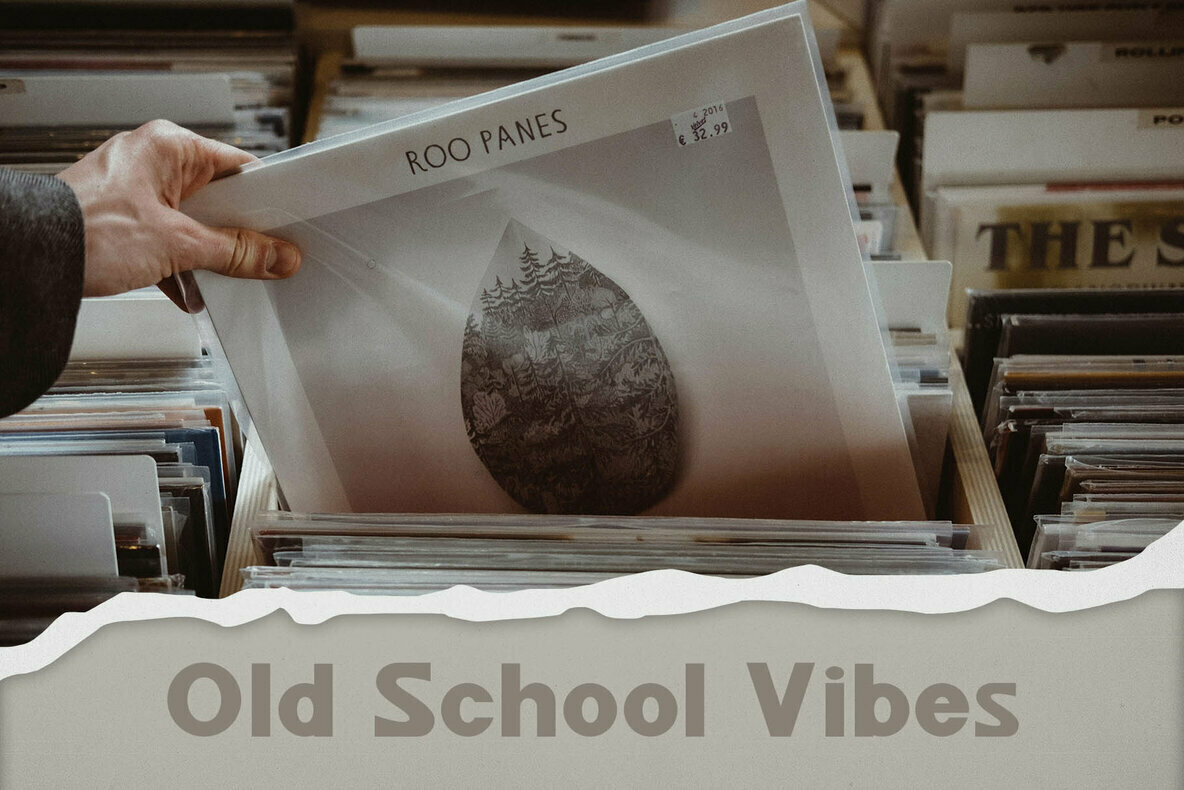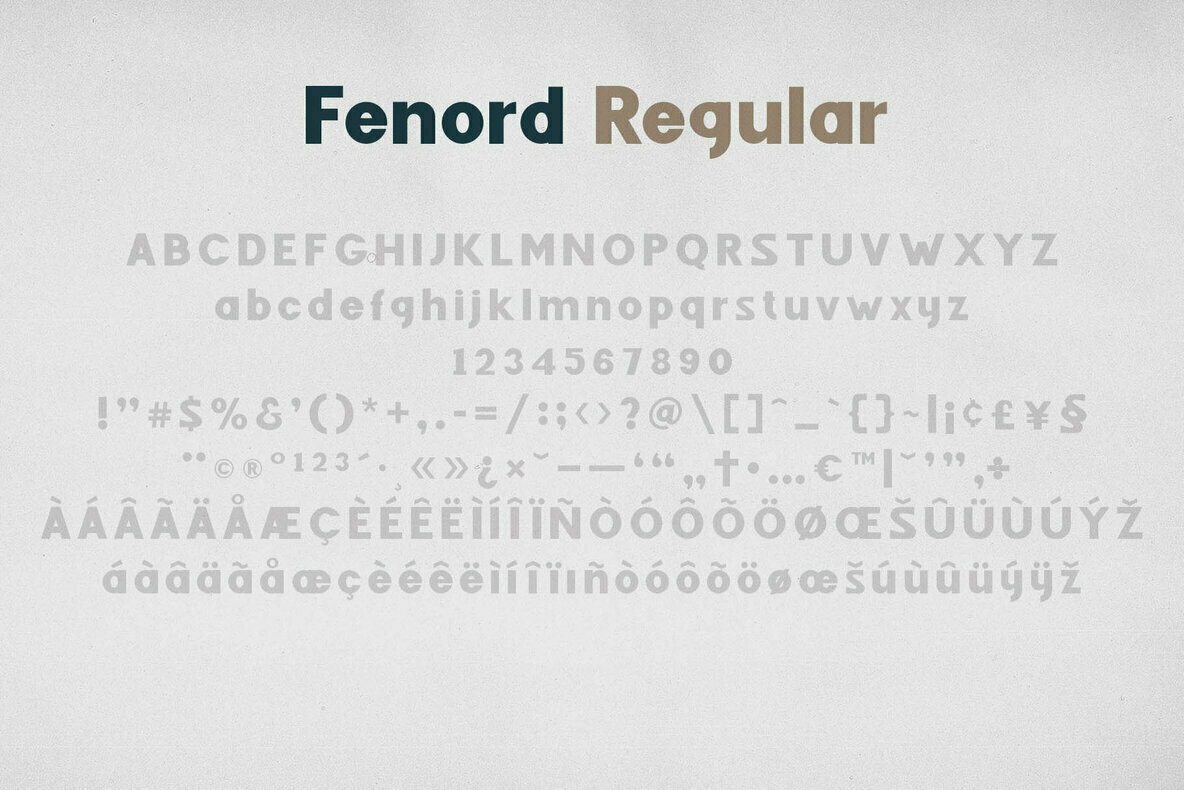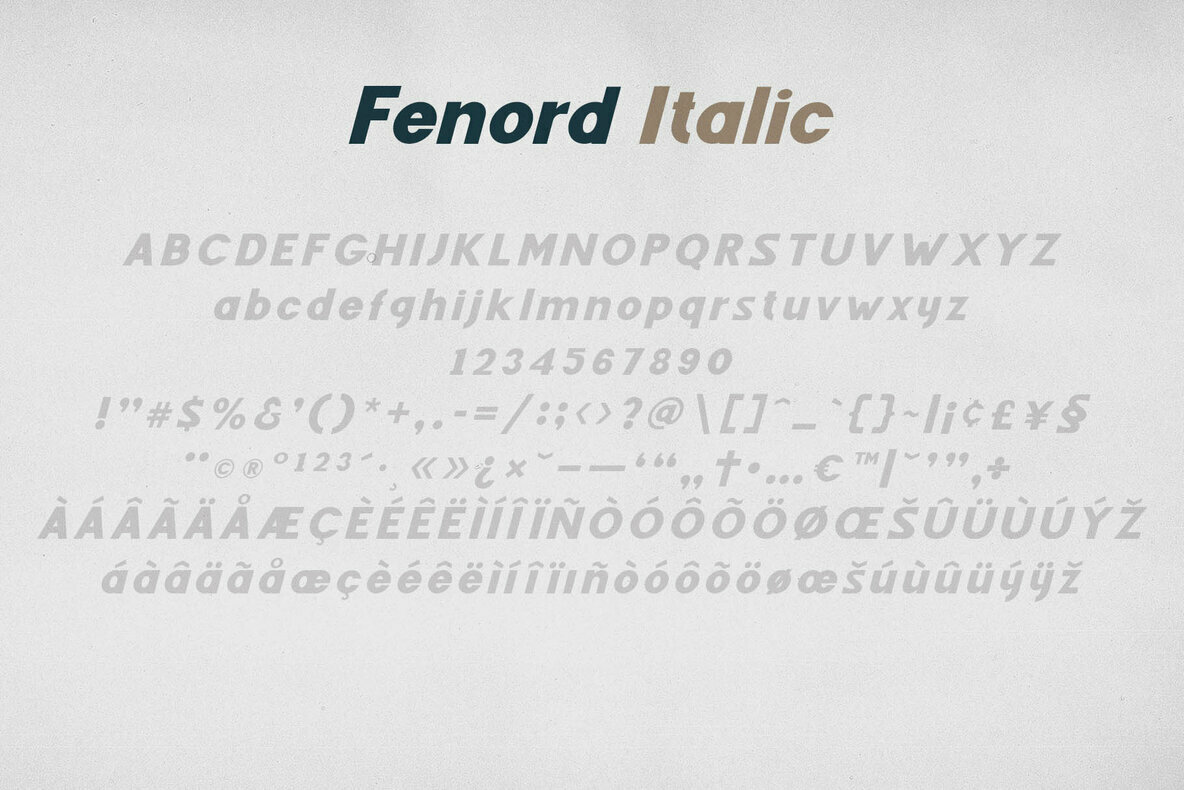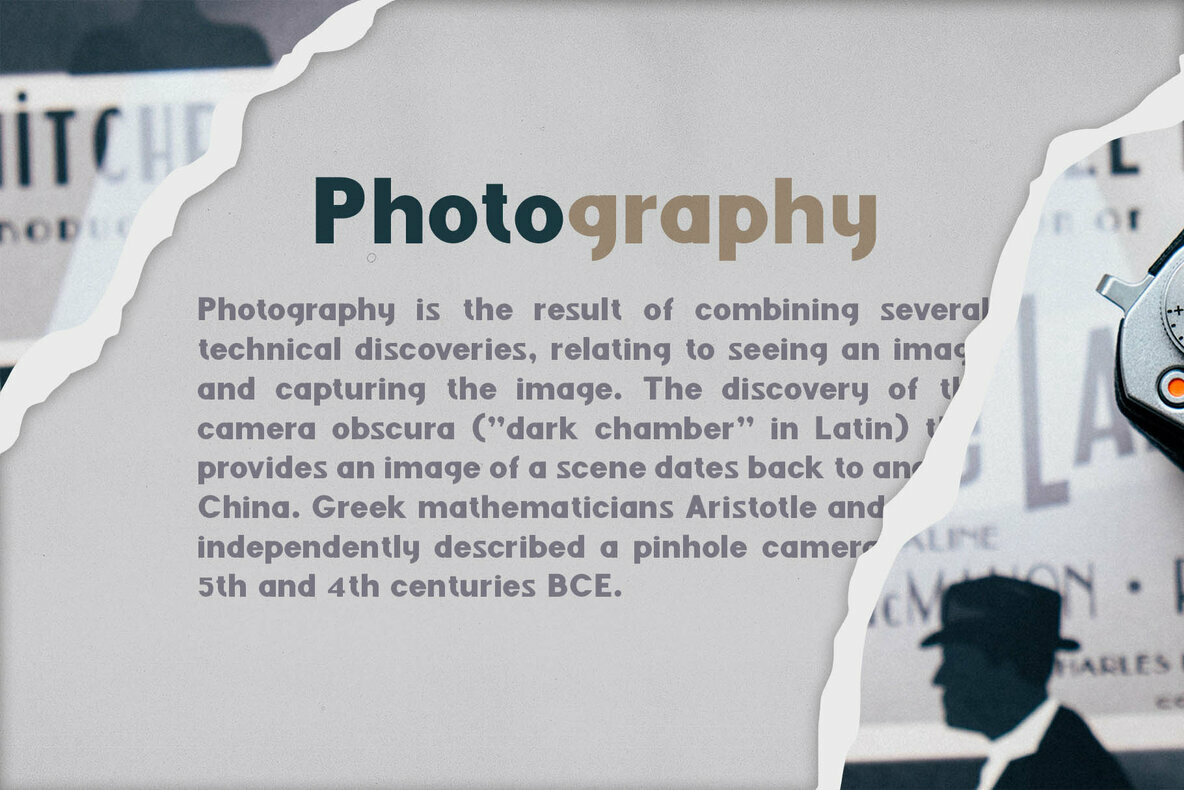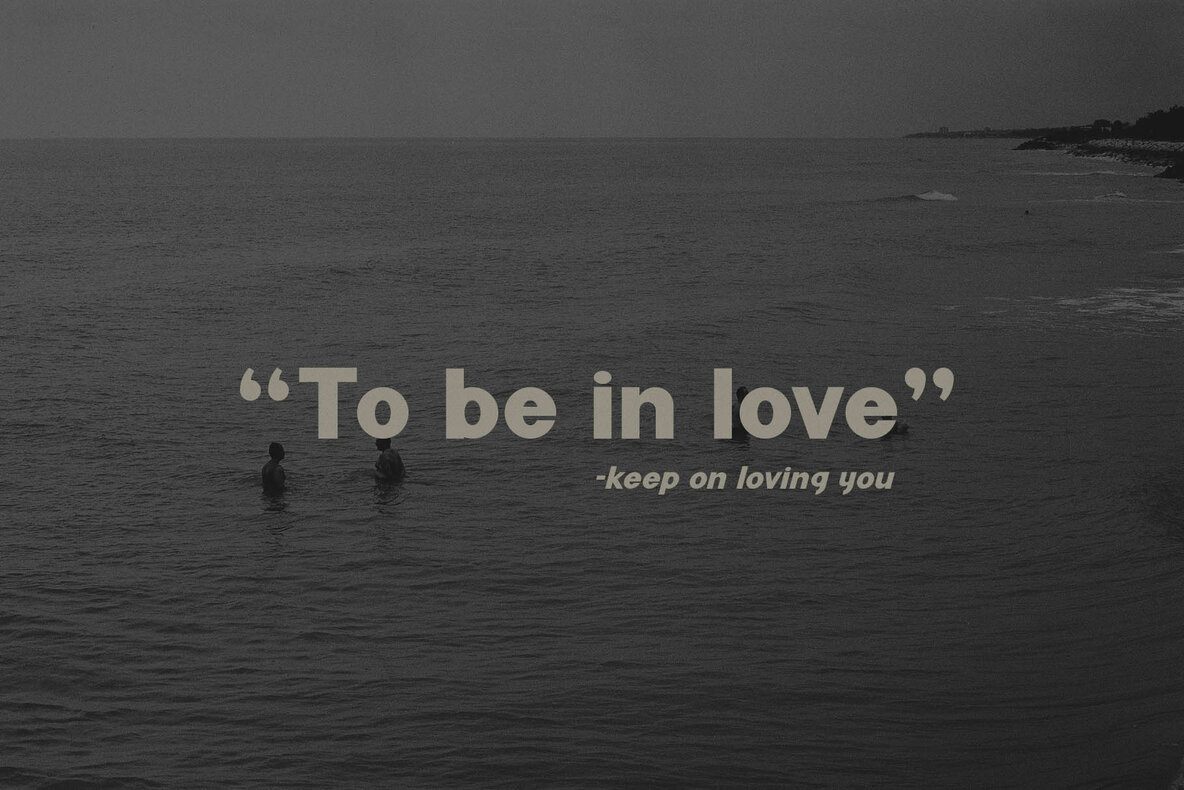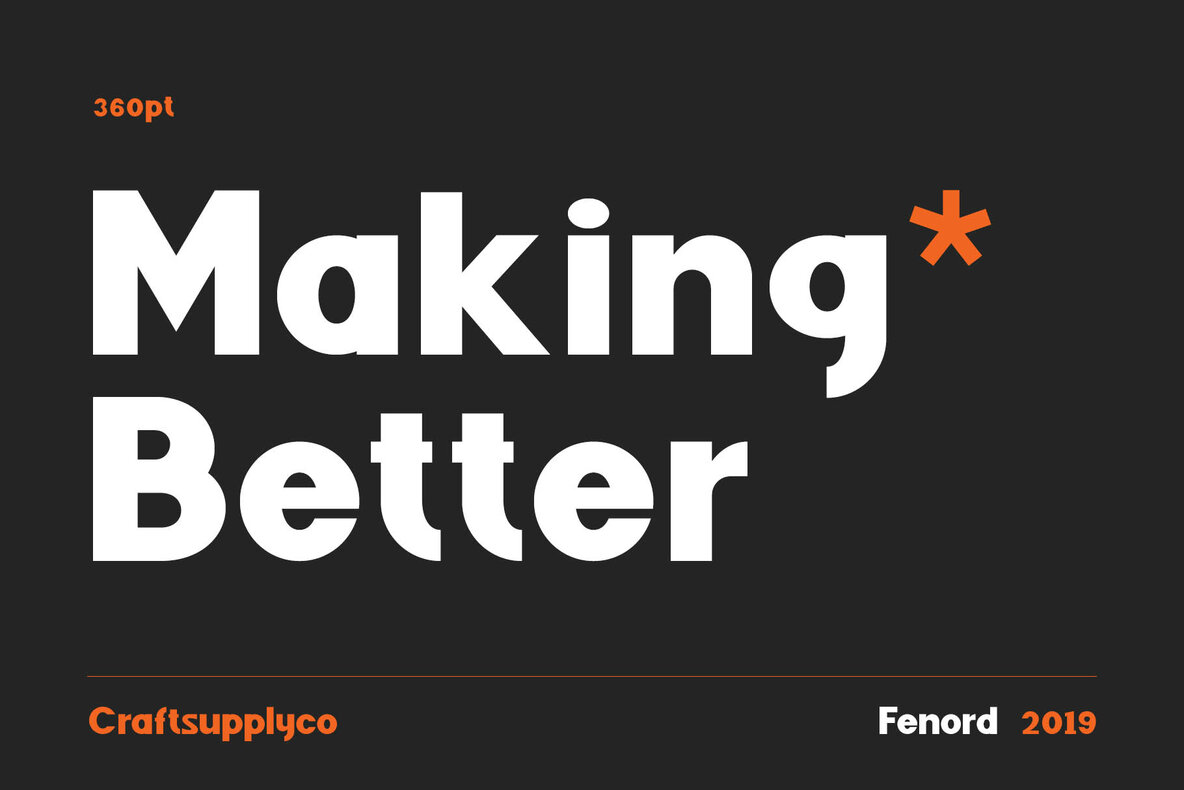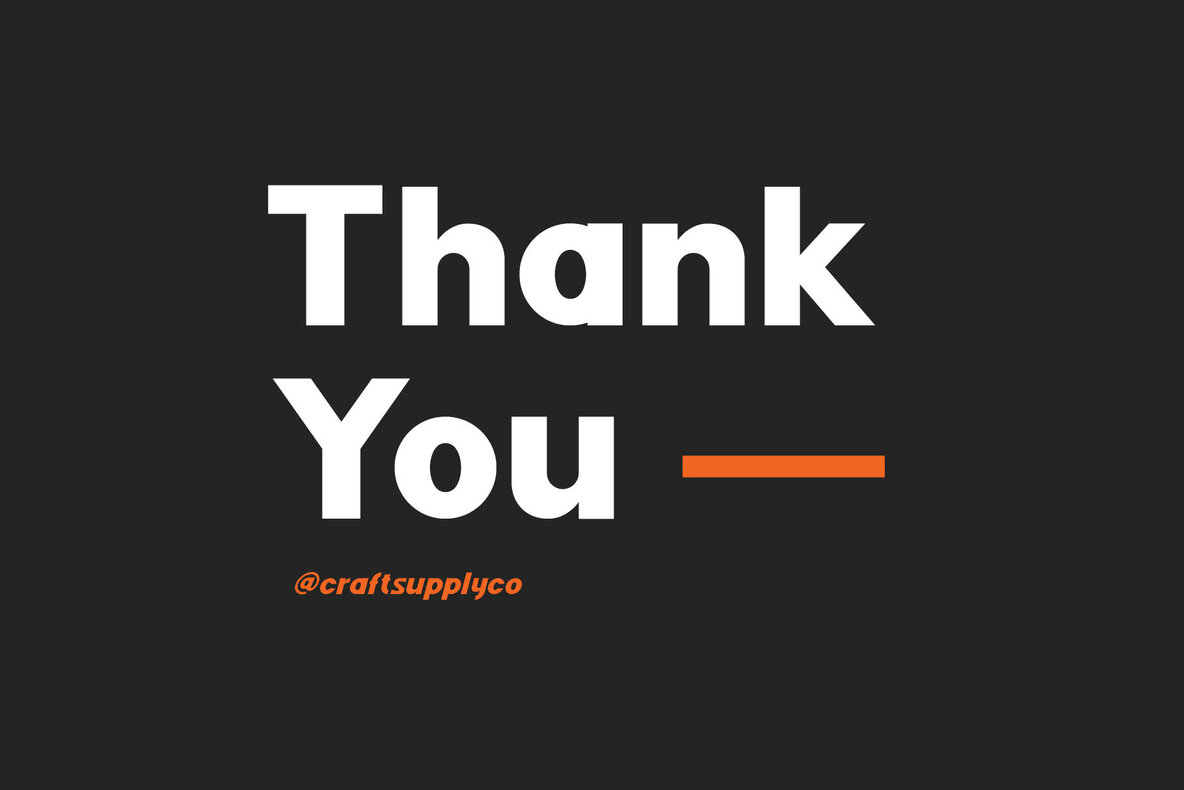
Fenord Font
Fenord was inspired by the European type specimen books, especially Fenord type standard. Delivering some glorious vibes of the solid values from the pioneers and keeping one eye on todays demands and technology, Fenord is made for high professional use.
Fenord has been crafted from scratch with a structural logic of its own: a fusion of pure geometry and optical balance. Fenord Font Family comes with 6 Styles, Regular, Italic, Thin, Thin Italic, Bold, Bold Italic. By combining a variety of styles Fenord Font Family is suitable for Logo, greeting cards, quotes, posters, branding, name card, stationary, design title, blog header, art quote, typography
Fenord is also suitable for art, modern envelope lettering or book design, happening style like handdrawn design or watercolor design theme, craft design, any DIY project, book title, wedding font, pop vintage design, or any purpose to make our art/design project look pretty and trendy.
- Upper Case & Lowercase
- Stylistic Alternates
- Standart Ligatures
- Numerals & Punctuations (OpenType Standard)
- Accents (Multilingual characters)